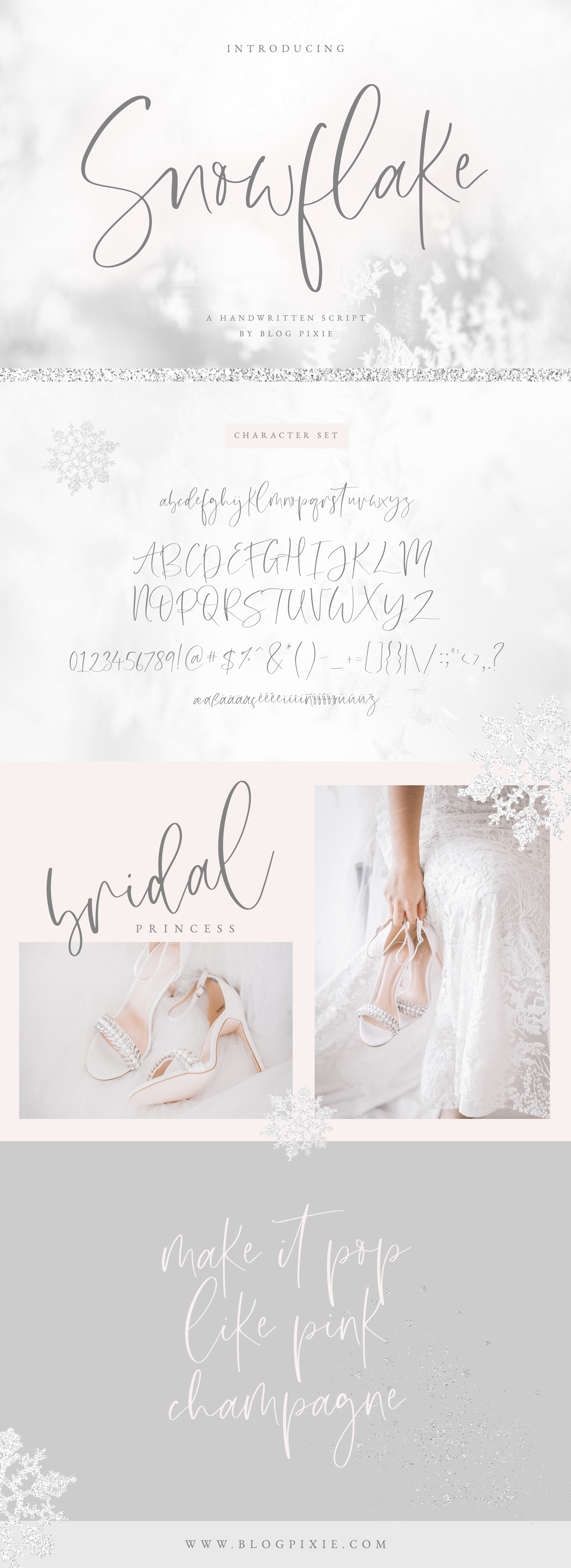
Snowflake Script Font
Snowflake script font is a modern handwriting font to download for personal and commercial use.
In a bouncy yet flowing hand lettered style, it's perfect to add a touch of stylish flair to any creative project.
Use Snowflake script for quotes, invitations, stationery, print design, logos, magazine, eBooks and logos.